Font design is the process of creating, modifying, and organizing letterforms into a functional typeface. Every font combines aesthetics with readability, helping communicate information clearly across digital and printed media. From branding and web design to publishing and advertising, well-designed fonts influence how people perceive content.
This guide explains what font design is, its key principles, popular font styles, the font design process, essential tools, and best practices for creating and selecting typefaces.
What Is Font Design?
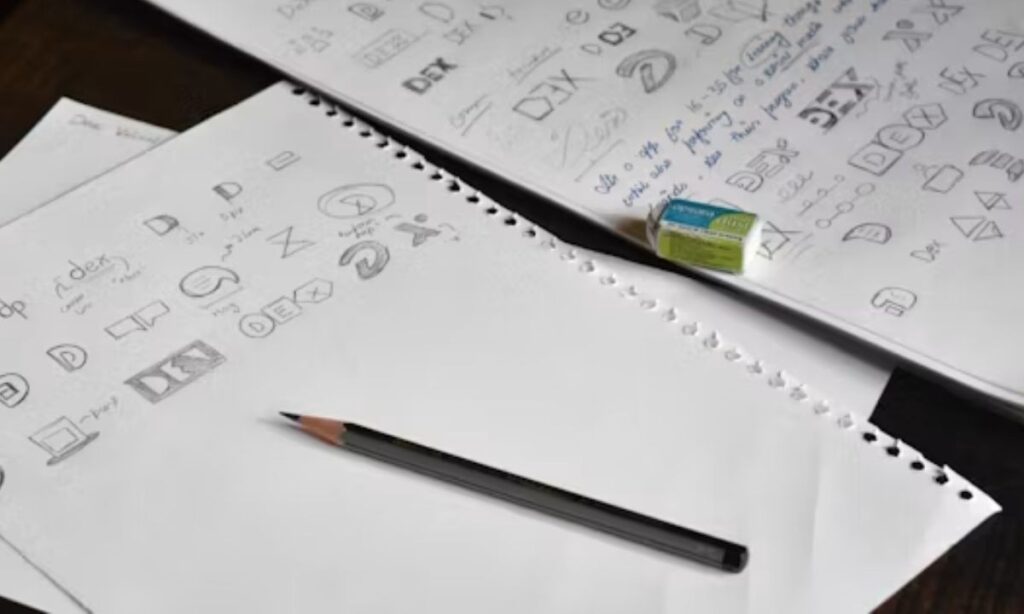
Font design is the creation of a set of characters—including letters, numbers, punctuation, and symbols—that share a consistent visual style. A completed font allows users to display text with a specific appearance while maintaining readability.
Professional font design focuses on:
- Letterform consistency
- Readability
- Character spacing
- Kerning
- Proportion
- Visual balance
- Language support
Each character is designed to work harmoniously with the others.
Why Is Font Design Important?
Font design affects how people read and understand information. A well-designed typeface improves usability, strengthens brand identity, and creates a consistent visual experience.
Benefits include:
- Improves readability
- Supports brand recognition
- Creates visual hierarchy
- Enhances user experience
- Communicates tone and personality
- Increases accessibility when used appropriately
Typography plays a key role in websites, mobile apps, books, marketing materials, and product packaging.
Types of Font Designs
Different font categories serve different purposes.
Serif Fonts
Serif fonts include small finishing strokes at the ends of letters.
Common uses include:
- Books
- Newspapers
- Editorial layouts
- Academic publications
- Luxury branding
Examples include Times New Roman, Georgia, and Garamond.
Sans-Serif Fonts
Sans-serif fonts have clean letterforms without decorative strokes.
They are widely used for:
- Websites
- Mobile applications
- User interfaces
- Business presentations
- Technology brands
Popular examples include Arial, Helvetica, and Roboto.
Script Fonts
Script fonts imitate handwriting or calligraphy.
They work well for:
- Wedding invitations
- Greeting cards
- Beauty brands
- Certificates
- Luxury packaging
Because many script fonts are decorative, they are best suited to headings or short text.
Display Fonts
Display fonts emphasize creativity and visual impact.
They are commonly used for:
- Posters
- Headlines
- Logos
- Event promotions
- Product packaging
Display fonts should be used sparingly to maintain readability.
Monospaced Fonts
Monospaced fonts assign the same width to every character.
They are popular for:
- Programming
- Code editors
- Technical documents
- Terminal interfaces
Examples include Courier New and Consolas.
Principles of Good Font Design
Successful font design combines creativity with technical precision.
Important principles include:
- Maintain consistent stroke thickness where appropriate.
- Balance proportions across characters.
- Optimize spacing between letters.
- Design clear uppercase and lowercase forms.
- Ensure readability at different sizes.
- Include punctuation, numbers, and symbols.
- Support multiple languages when possible.
Consistency helps readers recognize words quickly.
The Font Design Process
Creating a font usually follows several stages.
1. Research
Study the intended audience, design purpose, and historical influences.
2. Sketch Letterforms
Develop initial concepts on paper or digitally.
3. Digitize the Characters
Convert sketches into vector outlines using font design software.
4. Adjust Spacing and Kerning
Refine the distance between letters to improve readability.
5. Test the Typeface
Evaluate the font at different sizes, weights, and screen resolutions.
6. Export the Font
Generate font files for distribution and installation.
Popular Font Design Software
Professional type designers use specialized applications.
| Software | Primary Use |
| Glyphs | macOS font creation |
| FontLab | Professional type design |
| FontForge | Open-source font editor |
| RoboFont | Advanced font development |
| BirdFont | Beginner-friendly font editor |
| Adobe Illustrator | Letterform illustration before font production |
Each tool offers different features for drawing, spacing, and exporting fonts.
Key Elements of Typography
Typography extends beyond font selection.
Important elements include:
- Font family
- Font weight
- Font size
- Line height
- Letter spacing
- Word spacing
- Alignment
- Contrast
Together, these elements determine how comfortable text is to read.
How to Choose the Right Font Design
Select a font that matches your project’s goals.
Consider:
- Audience
- Brand personality
- Readability
- Platform
- Accessibility
- Language support
- Licensing
A playful display font may suit a poster, while a clean sans-serif font is often better for a business website.
Read more 21 Font Style Copy Paste ➜ Cool Fancy Text Free
Font Licensing
Before using a font, review its license.
Common license types include:
- Free for personal use
- Free for commercial use
- Open-source
- Premium commercial license
- Subscription-based license
Always verify whether a font can be used in logos, products, websites, or marketing materials.
Best Practices for Font Design
Whether designing or selecting a font, follow these recommendations:
- Prioritize readability.
- Limit the number of font families in one design.
- Create clear heading hierarchy.
- Pair complementary typefaces.
- Test fonts across devices.
- Maintain sufficient color contrast.
- Use decorative fonts only for emphasis.
These practices improve both appearance and usability.
Common Font Design Mistakes
Avoid these mistakes:
- Inconsistent letter spacing
- Excessive decorative elements
- Poor readability at small sizes
- Mixing too many font styles
- Ignoring accessibility
- Using fonts without the proper license
Simple, well-balanced typography often delivers the best results.
Trends in Font Design
Modern typography continues to evolve.
Popular trends include:
- Variable fonts
- Minimalist sans-serif typefaces
- High-contrast serif fonts
- Rounded geometric fonts
- Retro-inspired lettering
- Handwritten display fonts
- Responsive web typography
Variable fonts are increasingly used because they allow multiple weights and styles within a single font file, improving design flexibility and website performance.
1. What is font design?
Font design is the process of creating letterforms, numbers, punctuation, and symbols that form a complete and consistent typeface.
2. What software is used for font design?
Popular tools include Glyphs, FontLab, FontForge, RoboFont, BirdFont, and Adobe Illustrator for initial lettering concepts.
3. What is the difference between a font and a typeface?
A typeface is the overall design family, while a font is a specific style or variation, such as Regular, Bold, or Italic.
4. Can I create my own font?
Yes. You can design your own font using font editing software, then export it in formats such as OpenType (.OTF) or TrueType (.TTF).
5. Why is font design important?
Good font design improves readability, strengthens branding, enhances user experience, and helps communicate information effectively across digital and print media.
Font design is far more than just picking pretty letters — it’s the invisible force that shapes how your message feels before a single word is even read. Whether you’re crafting a bold display font for a poster, a clean sans-serif for a modern website, or a delicate script for a wedding invite, every choice you make in letterforms, spacing, and balance tells a story. The right typeface doesn’t just look good — it builds trust, sparks emotion, and makes your content unforgettable.
So whether you’re just starting to explore typography or you’re ready to design your very own custom font, remember: great design comes from practice, patience, and a genuine curiosity for how letters work together. Grab a tool like Glyphs or FontForge, start sketching, keep experimenting, and don’t be afraid to make mistakes along the way — that’s how the best typefaces are born! Your perfect font is out there, waiting to be created. 🎨✨